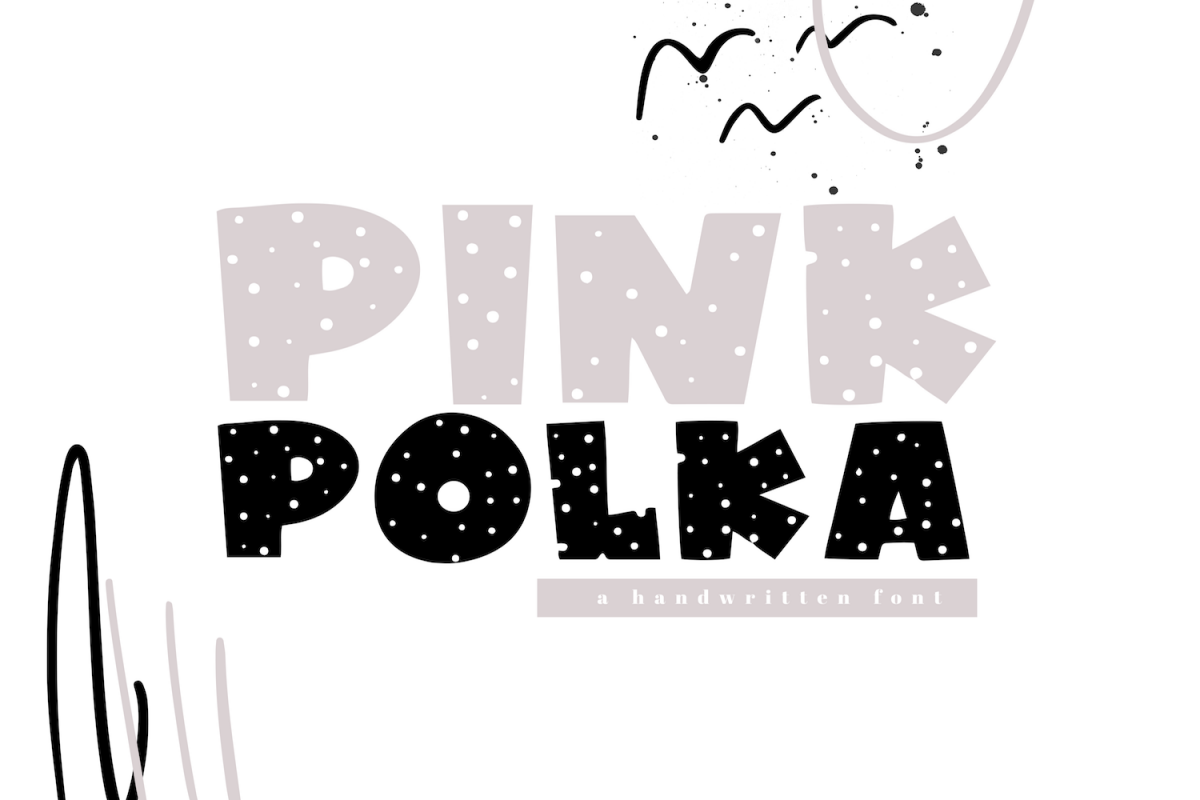
Pink Polka - A Bold Polka Dot Font
Pink Polka is a fun and bold handwritten font - with polka dots!
This is an all caps font.
Pink Polka is in the same style as my font "PINK"
This font is perfect for quotes, headings, designs, logos, invitations and more!
This font does not include accent characters.